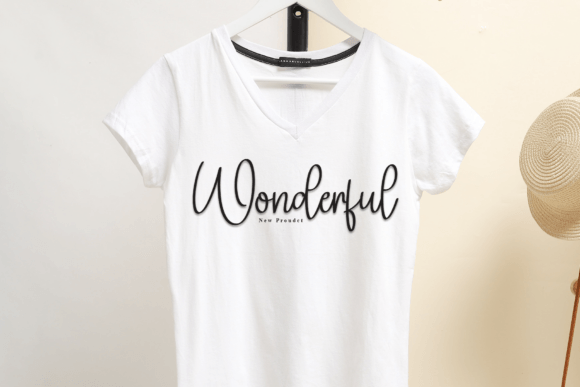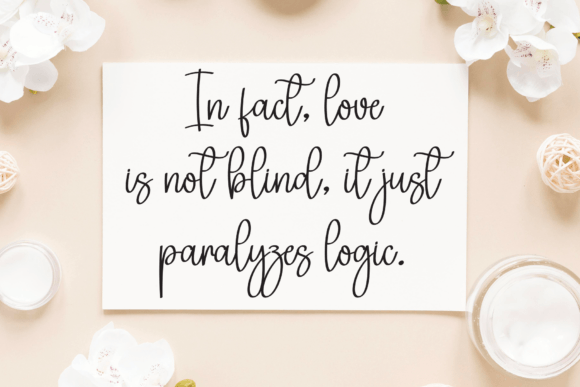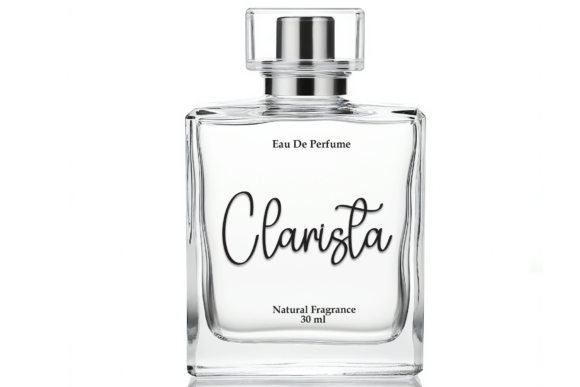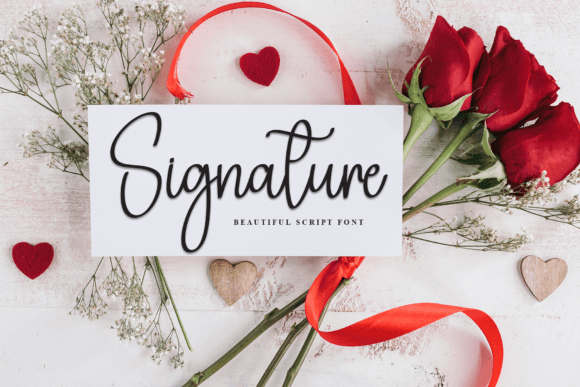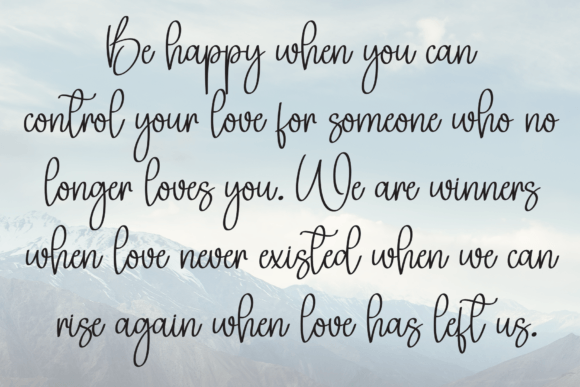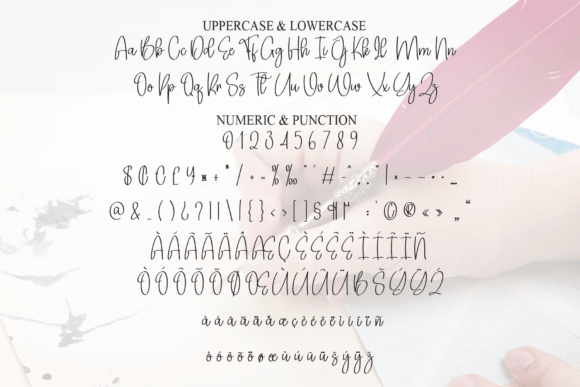
Discover the Magic of Angel Calligraph Font
As a designer, have you ever been working on a project, pouring your heart and soul into every detail, only to feel like something’s missing? You’re not alone. Sometimes, all it takes is that perfect font to elevate your design from good to great. And that’s exactly where the Angel Calligraph Font comes in – a beautiful, elegant script font that adds a touch of sophistication and charm to any project.
Whether you’re creating wedding invitations, logos, branding materials, or social media graphics, the Angel Calligraph Font is the perfect addition to your design toolkit. Its smooth, flowing letterforms and handcrafted feel make it a valuable asset for any designer looking to add a touch of elegance and whimsy to their work.
Angel Calligraph Font Key Features
- Font Family: Angel Calligraph Font is a beautiful, elegant calligraphy font designed to evoke a sense of sophistication and luxury.
- Unique Characteristics: The font features intricate, hand-crafted letterforms with subtle flair and elegance, making it perfect for wedding invitations, luxury branding, and high-end design projects.
Angel Calligraph Font Review
Overall, I think the Angel Calligraph Font is a beautiful, elegant script font that can add a touch of sophistication to any design project. ✨ The subtle flourishes and flowing connections between letters make it perfect for titles, headings, and other emphasis text. It’s also versatile enough to be used for body text, although it’s worth noting that it can be quite dense.
One of the standout features of this font is its wide range of weights and styles, from Light to Black, and even a few decorative options. This makes it easy to find the perfect fit for your design, whether you’re going for a delicate look or something more dramatic.
- Beautiful, elegant script font
- Wide range of weights and styles
- Perfect for titles, headings, and emphasis text
- Can be used for body text, but be aware of density
- Can be difficult to read in smaller sizes
- May not be suitable for large blocks of text
- Some characters may require additional styling or formatting
Overall, I would recommend the Angel Calligraph Font for any project where you want to add a touch of elegance and sophistication. However, be aware of its limitations and use it judiciously to get the best results.
Tips for Getting the Most Out of the Angel Calligraph Font
To get the most out of the Angel Calligraph Font, try the following tips:
– Use the font for titles, headings, and other large text elements.
– Experiment with different font sizes and colors to create a unique visual effect.
– Pair the font with other elegant or cursive fonts for a cohesive look.
The Angel Calligraph Font is commonly used for:
– Wedding invitations and stationery
– Baby shower invitations and decorations
– Formal event invitations and programs
– Luxury branding and marketing materials
What is the recommended font size for using the Angel Calligraph Font?
The Angel Calligraph Font is designed to be used at a minimum font size of 12 points. However, for optimal readability and aesthetic appeal, we recommend using the font at a size range of 14-24 points. This will ensure the font looks its best and is easy to read, even at larger sizes.